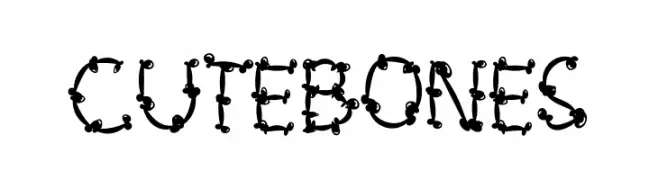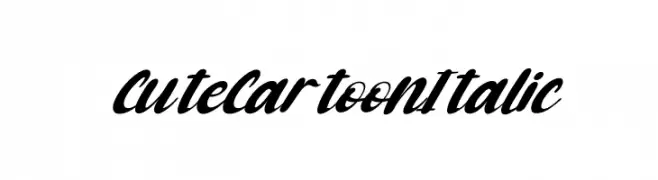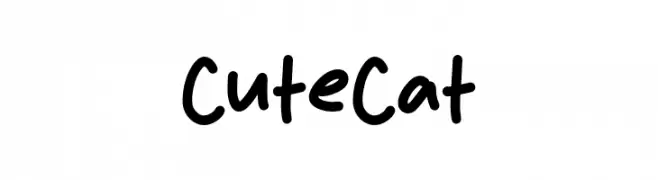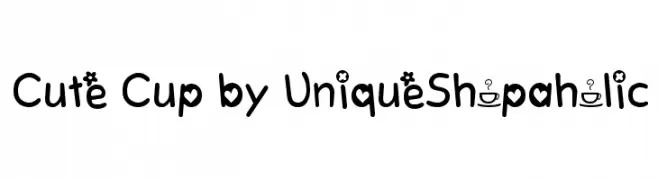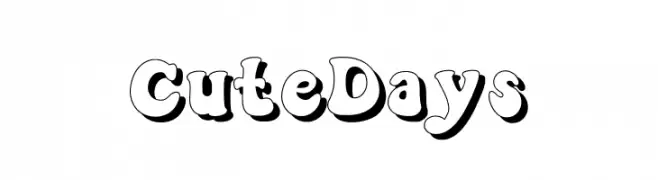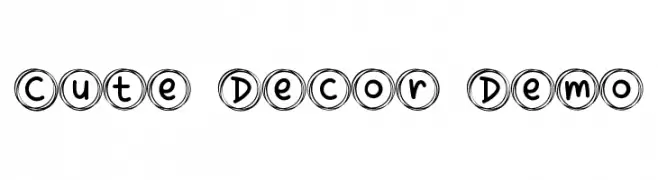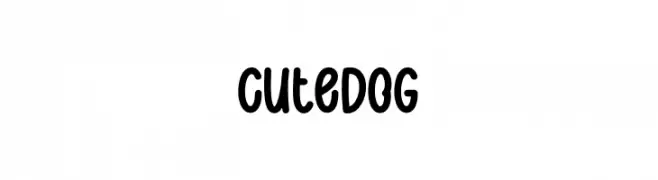
A playful, bone-themed font with a quirky and whimsical design.
A playful, bubbly font with thick, rounded characters and a whimsical style.
A playful, hand-drawn font with a cartoonish and whimsical style.
A bold, italicized script font with a playful, cartoonish style.
A playful, handwritten-style font with rounded, uniform strokes.
A playful, bold font with rounded characters and a 3D shadow effect.
A playful, decorative font with bold, rounded letters encased in circular outlines.
A playful, rounded font with a whimsical and friendly aesthetic.
A playful, rounded font with a friendly and approachable style.